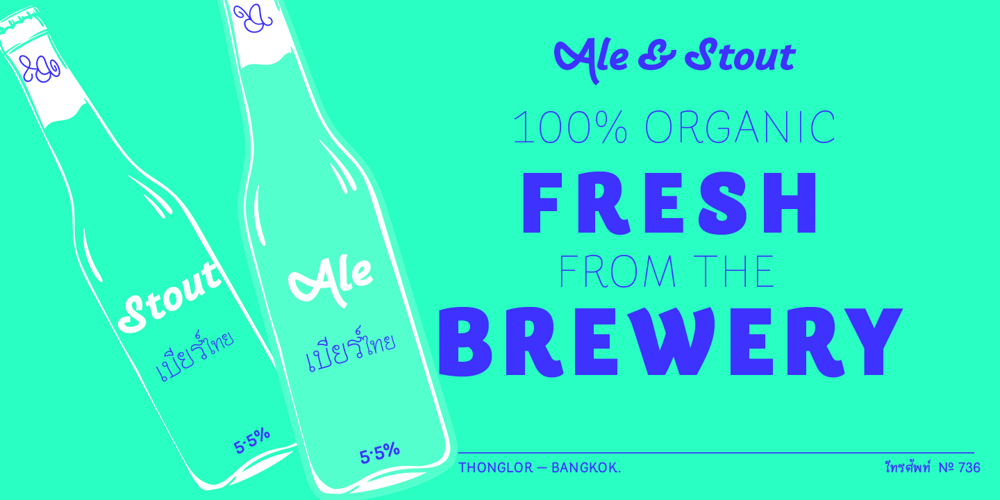
Arlette Font Family was designed by Pilar Cano, Ferran Milan and published by TypeTogether. Arlette contains 16 styles and family package options. Pilar and Ferran based Arlette on the fast stroke of one letter from a Roger Excoffon family, but along the way they abandoned that starting point in favour of experimentation. Many sans serifs are like a svelte black dress: functional, beautiful, and the unfussy outfit for a nice evening get together. The Arlette family isn’t like this. It’s a stunner — an incandescent reimagining of what defines a sans and how it can look. Arlette explores the boundaries of the sans serif landscape and returns with forms developed from gestural vigour. Thinking of it as “painterly” may at first seem to fit, but it underestimates Arlette’s ability to master an unseen world of countless emotions and physical applications: magazines, branding, editorial, teen and young adult works, book covers, and a host of products and packaging whose content will be amplified with Arlette’s voice. Not only does Arlette use its eight weights plus italics to speak in Latin-based scripts, it is also fluent in Thai and has six weights (hairline through bold) with which it meets that challenge, whether in text or display. Arlette Thai’s modern nature is seen in two features for the script. One is the decorative Thai characters that are based on original palm leaf manuscripts. Another is a version of the Latin numerals adapted to the height of the script due to their wide use in Thailand. Arlette Thai has been meticulously developed, including contextual kerning to avoid mark clashes. Arlette’s OpenType capabilities include mathematic and scientific figures, positional forms, pointers, arrows, and oldstyle, lining, and tabular lining numerals. In addition to all this, it’s packed with swashes and swash ligatures in both scripts for enthusiastic typesetting. Because it pushes experimentation without compromising readability, both Arlette Thai and Latin are surprisingly legible in small sizes and arrestingly beautiful when their details can be seen.